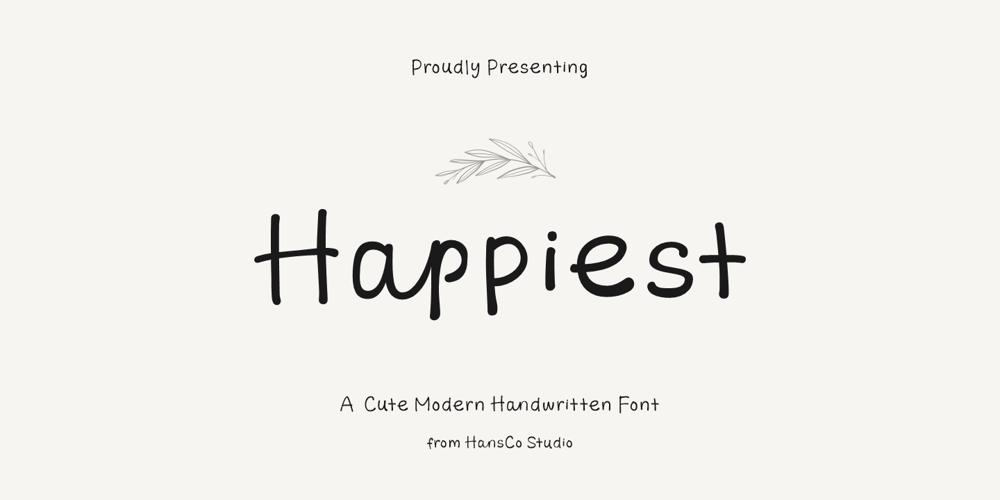
Happiest Handwritten
Happiest Handwritten font
Happiest Handwritten Font Family was designed by Burhan Afif and published by HansCo. Happiest Handwritten contains 1 styles and family package options. Happiest Font is a cute and modern handwriting font carefully created with a touch of elegance. Whether you’re looking for fonts for Instagram or for DIY projects, this font will turn any creative idea into a true piece of art!. This font is perfect also for creating print templates like posters, branding, quotes, blog titles, fashion, invitations, greeting cards, business cards, clothing, stationery or anything else. Comes with a full uppercase, lowercase, numbers, punctuation and with extensive language support, it’s going to be a very usable addition to your project.Features : Uppercase & Lowercase Numbers & Punctuation Multilingual Ligature Enjoy!